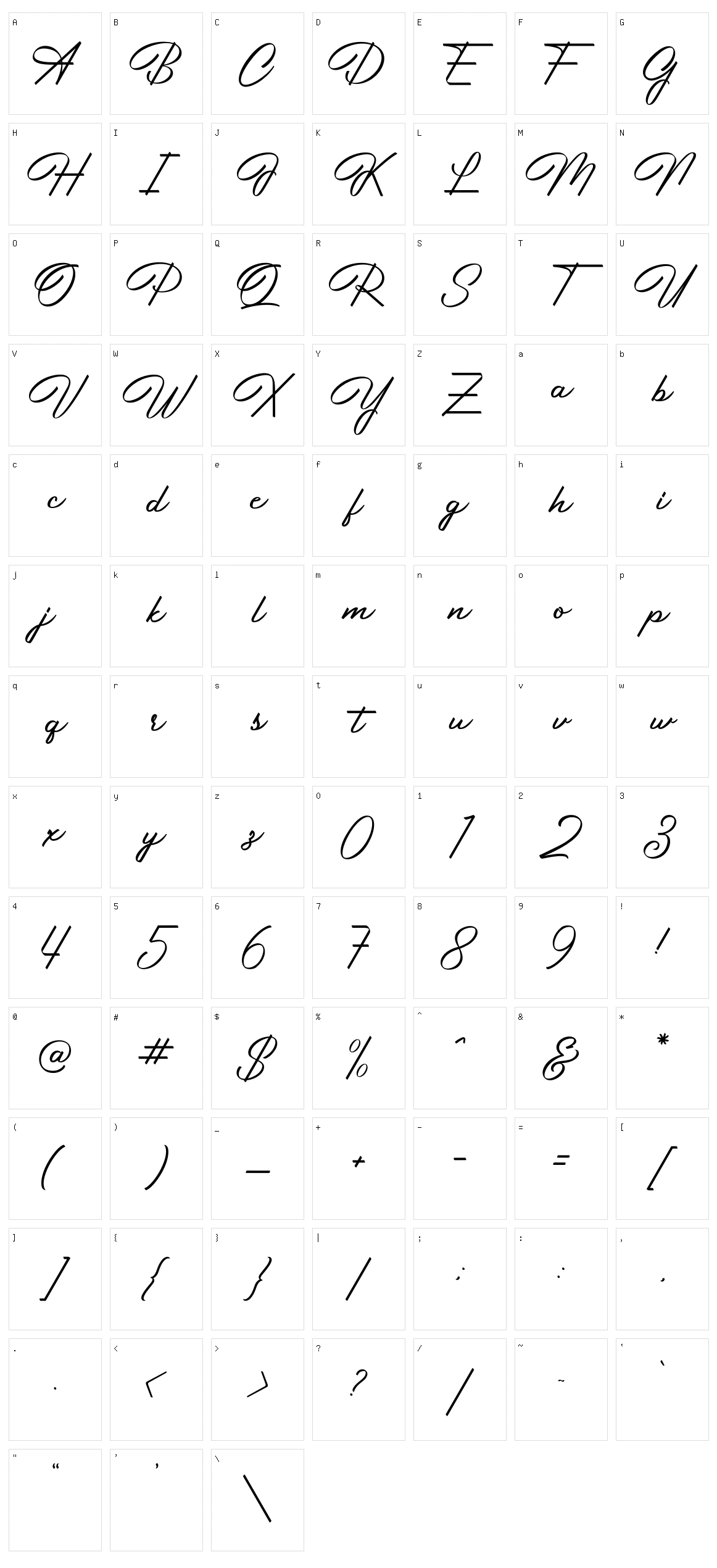
Introducing Junethes - Stylish Signature Font
Junethes is a sweet script typeface with legibility and authenticity. Use it for any design project that requires a personalized appearance!
This font is suitable for use on photography, business cards, weddings, t-shirt designs, logos, magazines, quotes, fashion, watermarks, invitations, signatures.